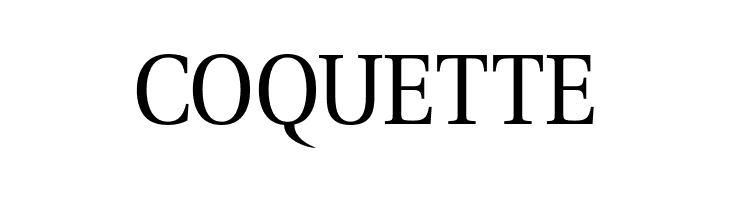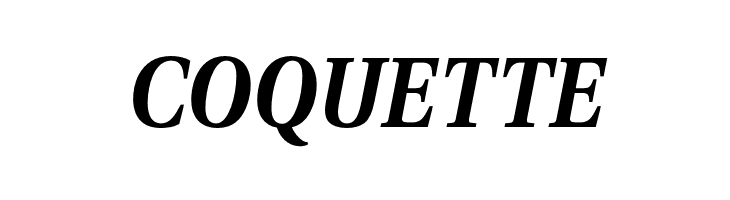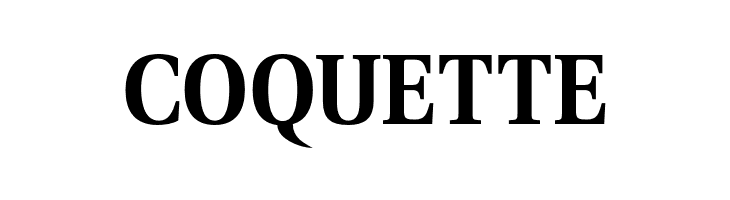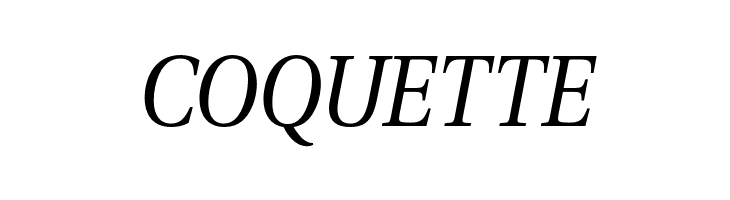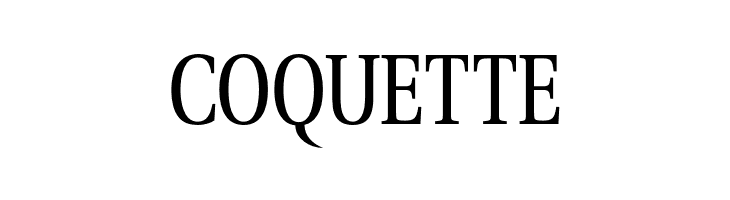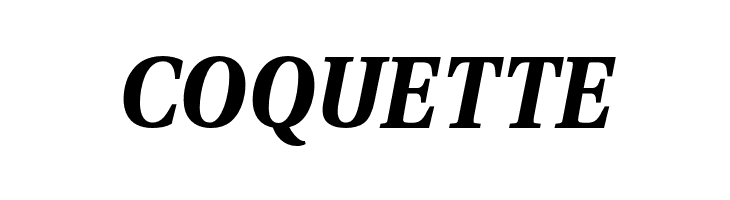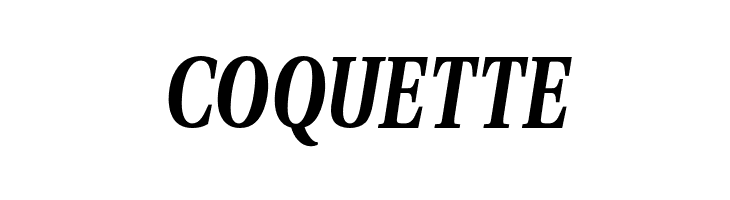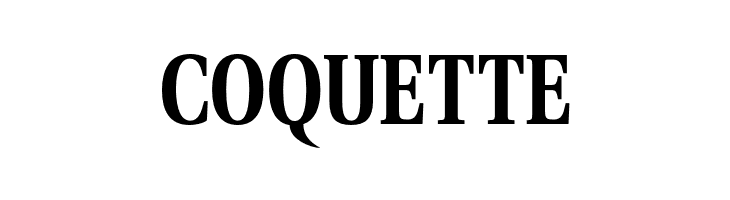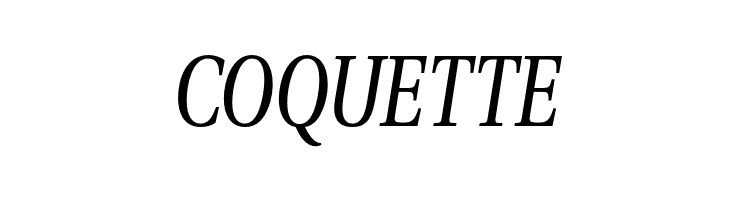
A bold, classic serif font with strong strokes and elegant design.
A bold, italic serif font with a classic and elegant style.
A classic serif font with an elegant italic slant, offering sophistication and readability.
A classic serif font with elegant strokes and balanced proportions.
A bold, classic serif font with strong strokes and clear characters.
A bold, italic serif font with a classic and elegant style.
A classic italic serif font with elegant proportions and moderate contrast.
A classic serif typeface with elegant strokes and moderate contrast.
A bold, classic serif font with strong, authoritative strokes.
A bold, italic serif font with a classic and elegant style.